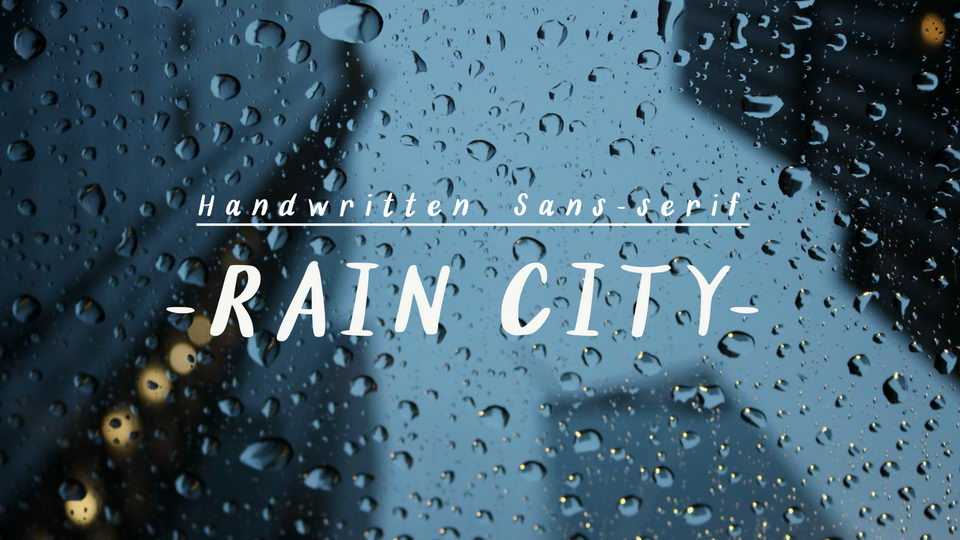
Download Rain City font, a handwritten sans serif typeface, inspired by all the handicraft products spotted in this hippy city – Seattle.
Designer: Kelly Lui